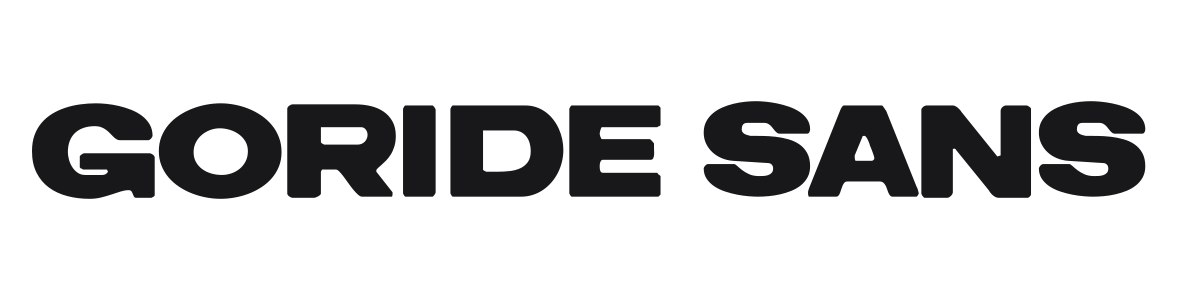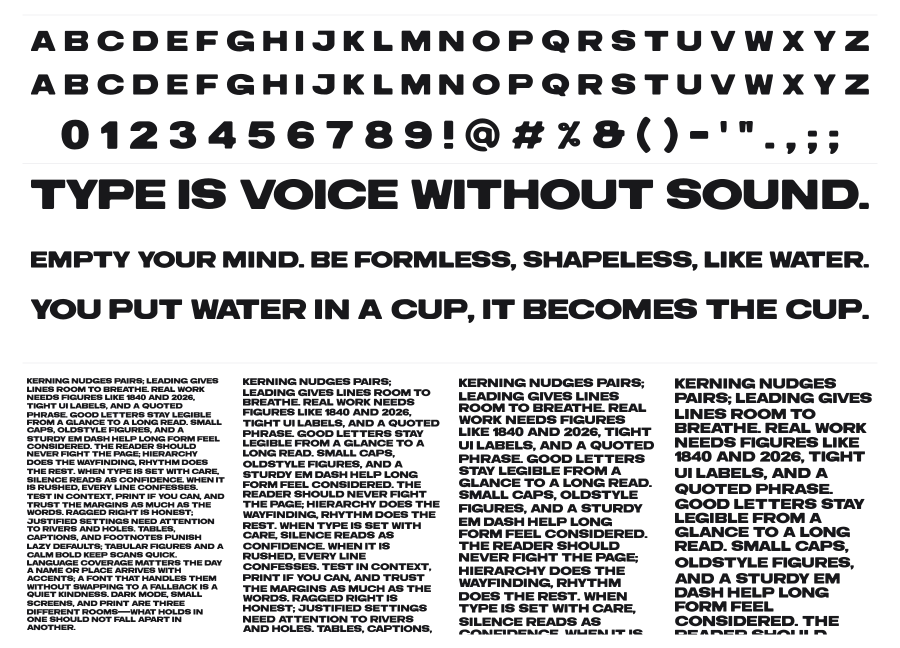
Goride Sans
Goride Sans is a bold, wide grotesque sans-serif built for high-impact visual work like video thumbnails, posters, and magazine covers. Its heavy weight and near-monoweight strokes read with force at large sizes, while subtly softened corners keep it from feeling rigid. The family includes extended, outline, and inked variants for versatility across digital and print contexts.